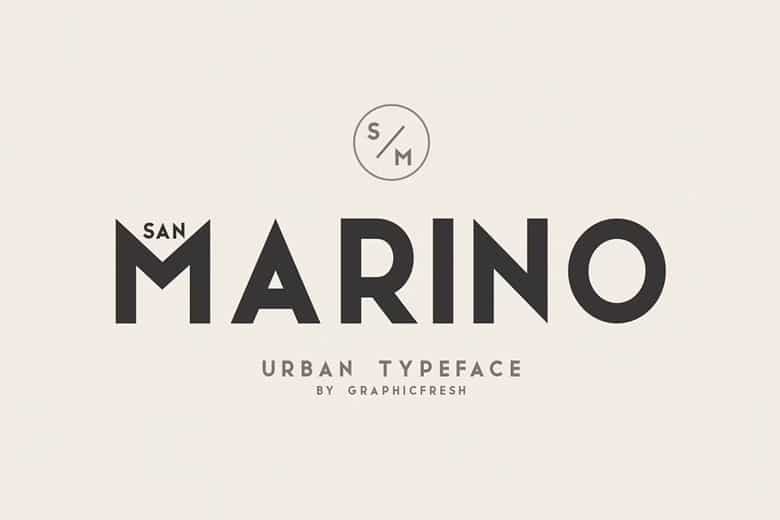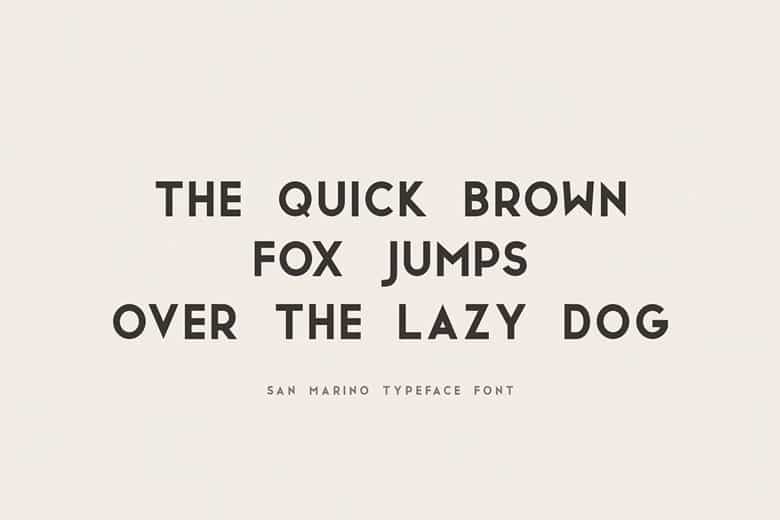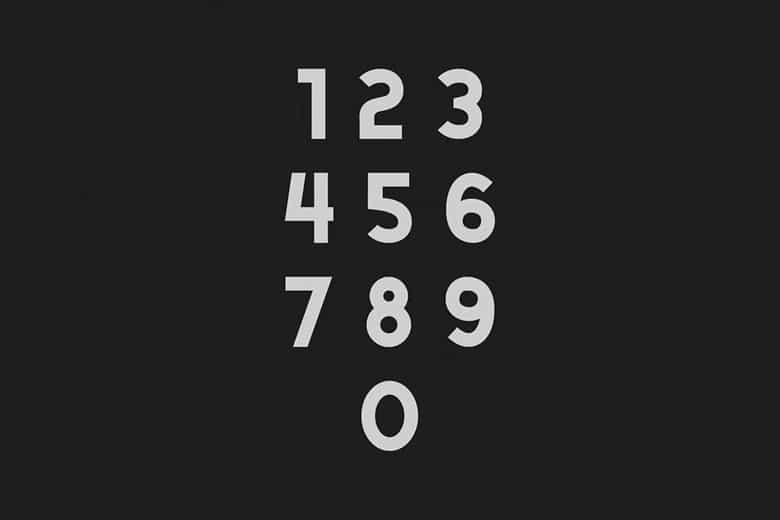
San Marino is a new sans serif urban typeface that flawlessly combines contemporary design approach with adaptability properties. The font presents a clean professional design which makes it useful for any design project needs. It offers four styles. The OpenType features support an expanded range of characters which function for Western European language environments.